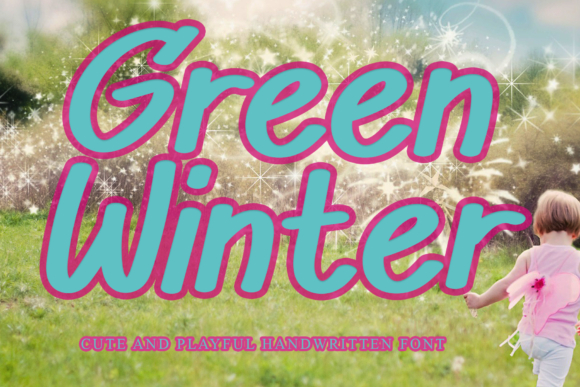
Step into the realm of impeccable typography with Green Winter, a display font that's meticulously crafted to captivate small displays. Dazzlinggleam, the font's creator, has instilled Green Winter with a unique blend of relaxation and vigor. Its casual yet daring style effortlessly complements an array of design projects, ensuring you'll adore the breathtaking outcomes.
This remarkable font family is the epitome of versatility, boasting a diverse range of applications. Let Green Winter's characters dance across your website headers, ignite your social media posts with vibrancy, or embellish your logos with a touch of distinction. Its impeccable readability, even in compact sizes, makes it the perfect choice for user interfaces, ensuring seamless navigation and crystal-clear communication.
Embrace Green Winter's alluring charm and elevate your creative endeavors to new heights. Its playful and energetic nature will breathe life into your designs, leaving a lasting impression on your audience. Let your imagination run wild as you explore the limitless possibilities that Green Winter presents.